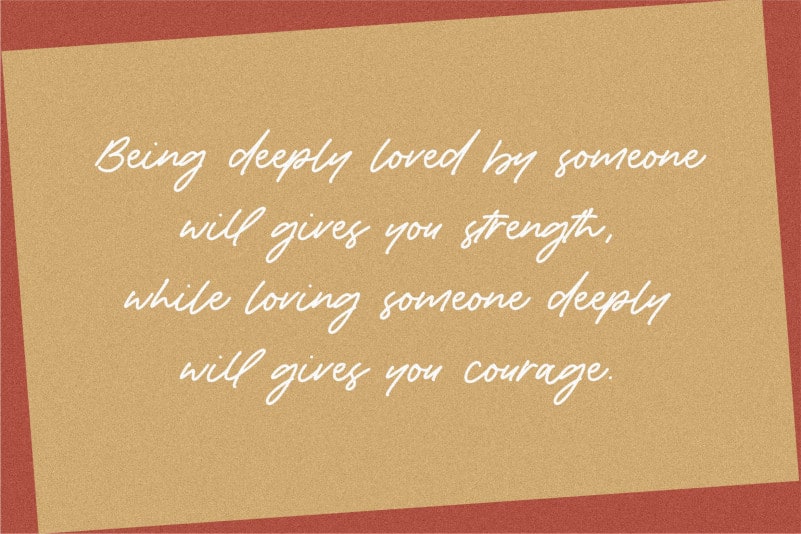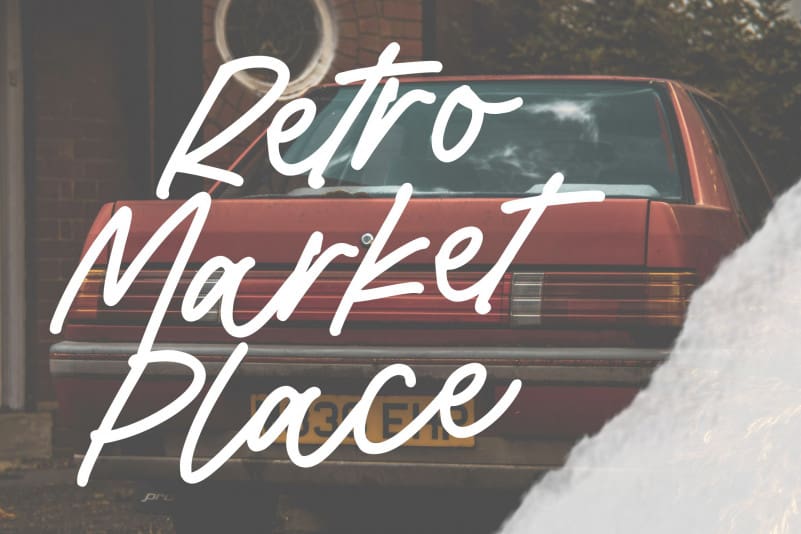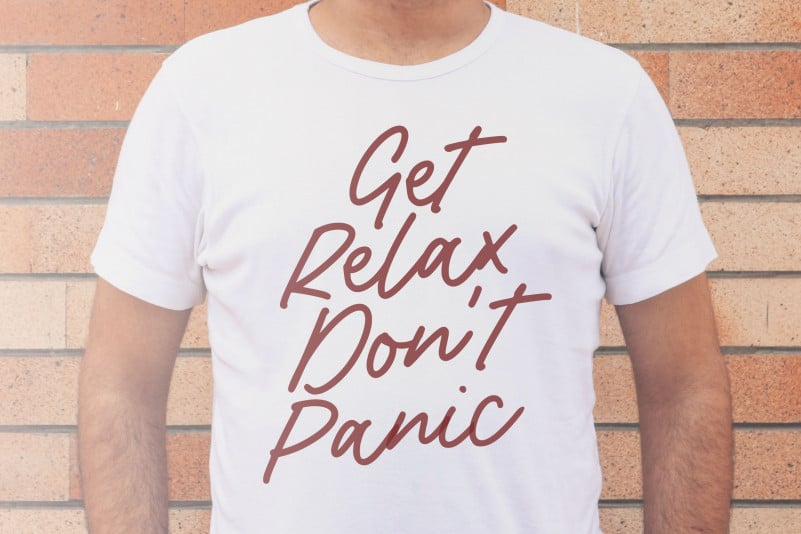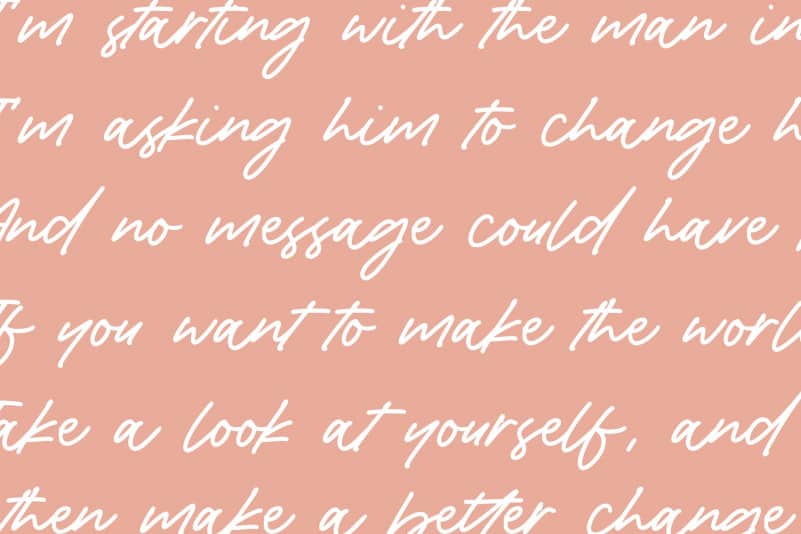
Royal Mansion Monoline Calligraphy Font
Proudly Present, Royal Mansion Monoline Calligraphy Font.
Royal Mansion is a Monoline Calligraphy Font.
Royal Mansion is perfect for product packaging, branding project, megazine, social media, wedding, or just used to express words above the background.